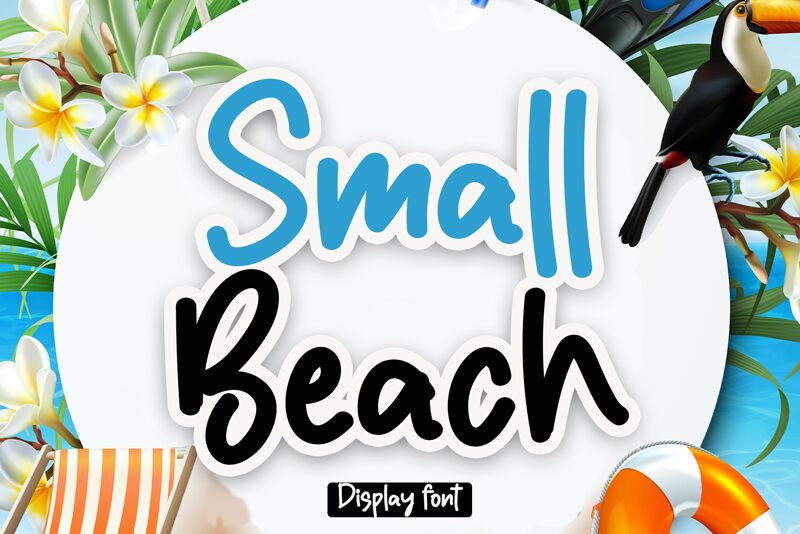
Small Beach font
Small Beach
This font retains a classy calligraphic influence while feeling contemporary and fresh. Its versatility will inspire a wide range of creative ideas, from letterheads and titles to stationery.